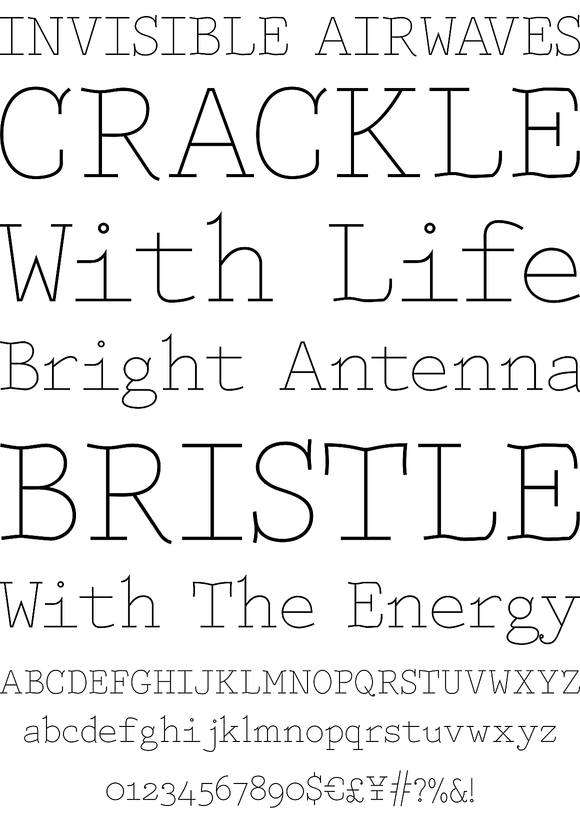
Babbage derives its inspiration from the pure utilitarian form of a typewriter font, humanized with a subtle infusion of naïve capriciousness. Its prosaic heritage is seasoned with an understated elegance and quiet flair.